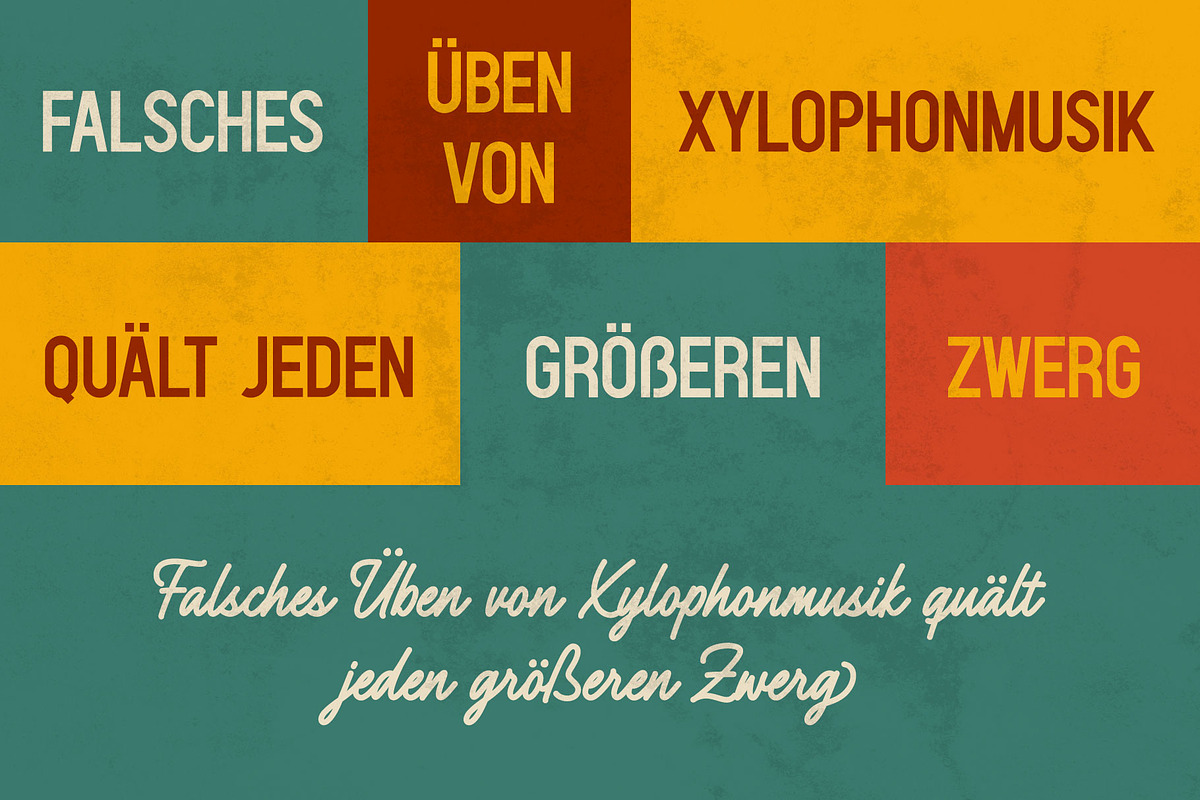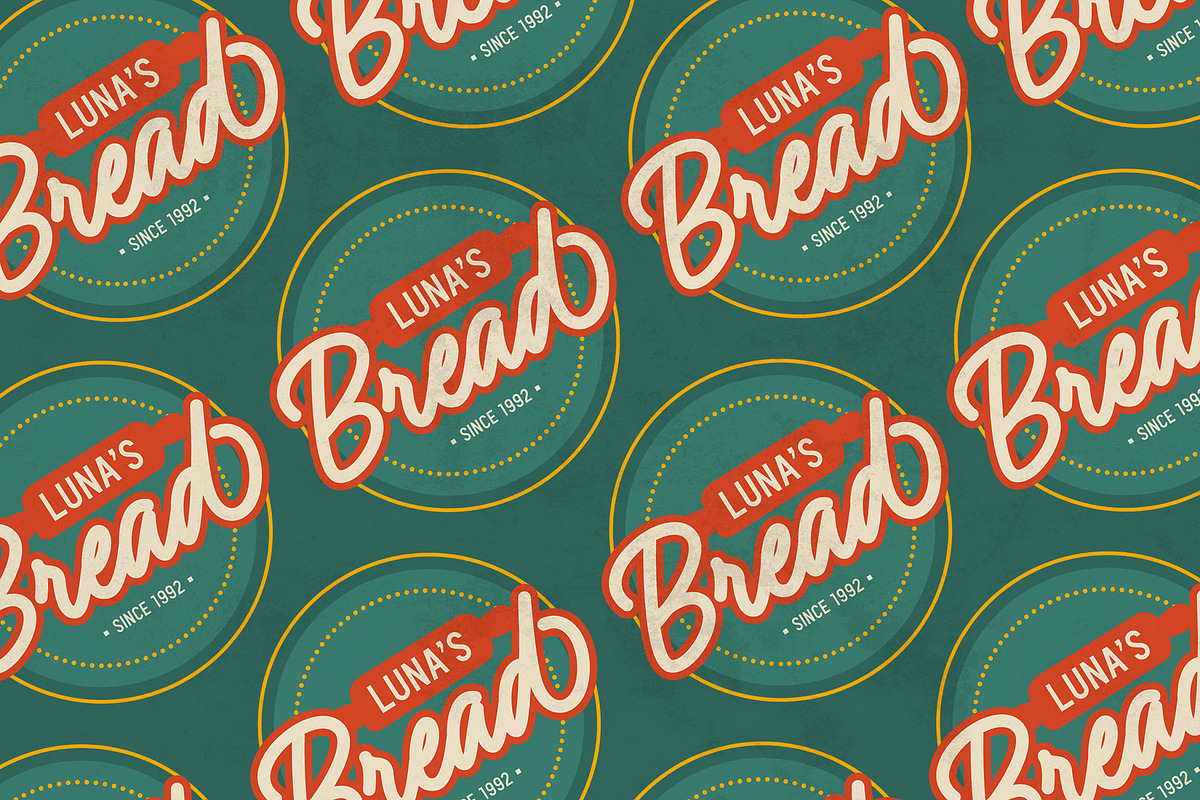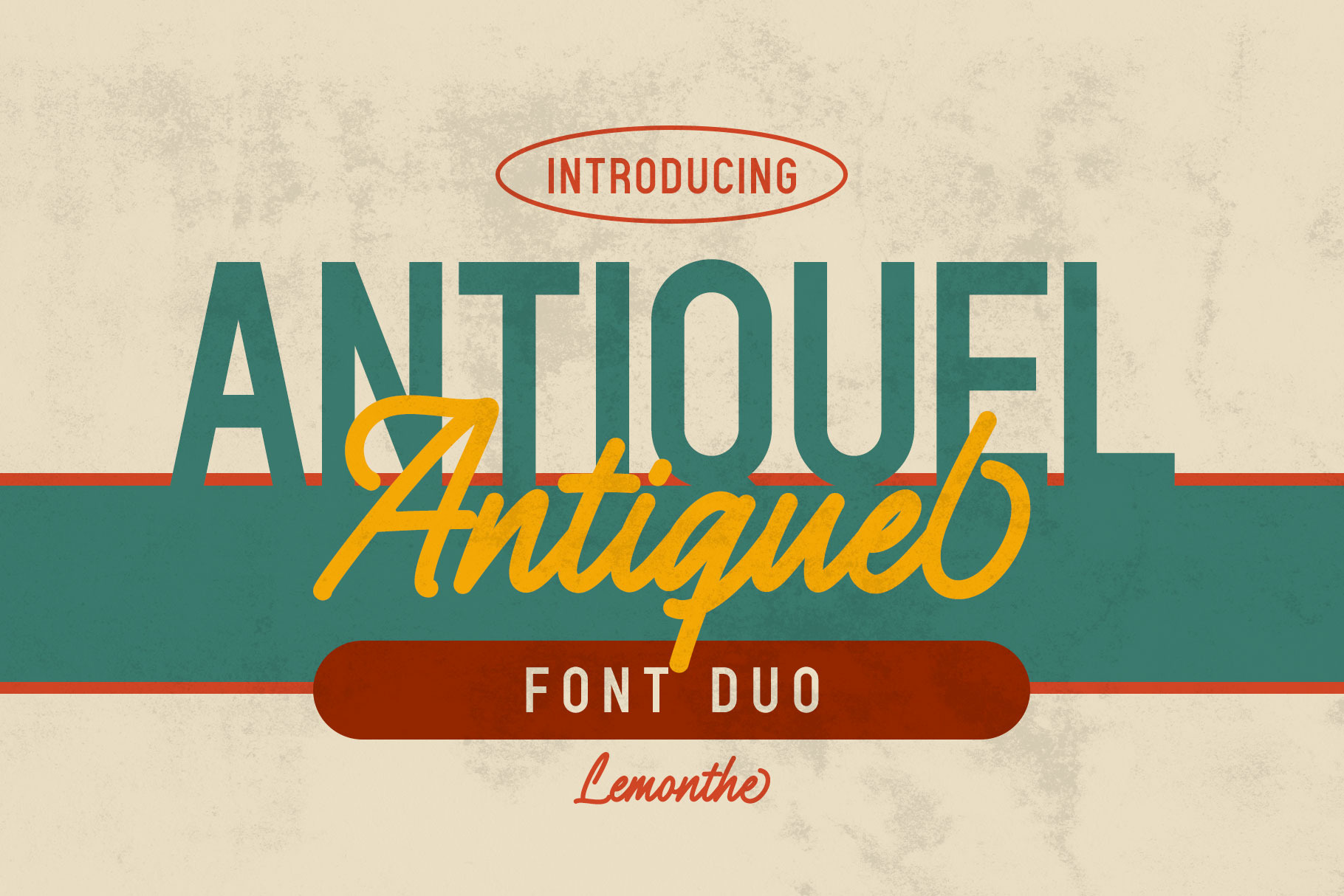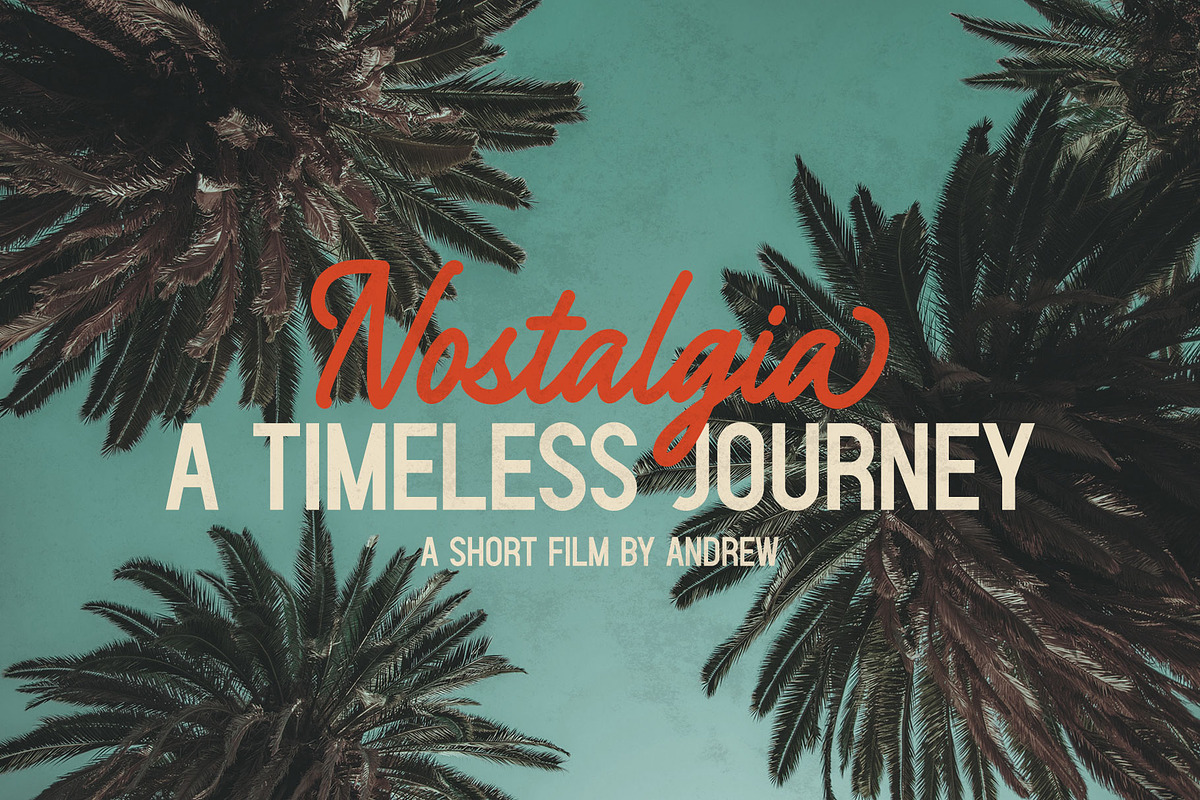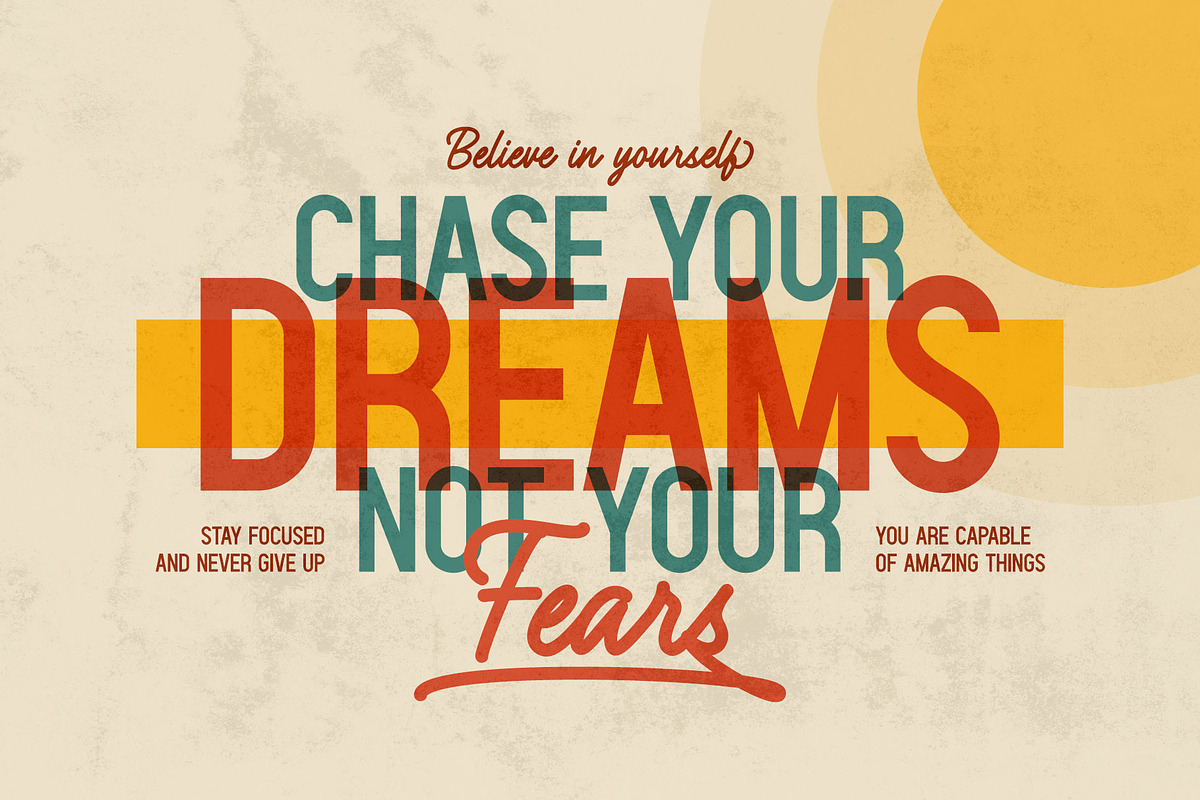
Antiquel | Font Duo
Antiquel Font Duo: Is the perfect combination of clean and modern all caps sans-serif style with a classic script touch. It's suitable for creating various design projects such as logos, branding, labels, posters, titles, packaging, quotes, with a retro or modern style.